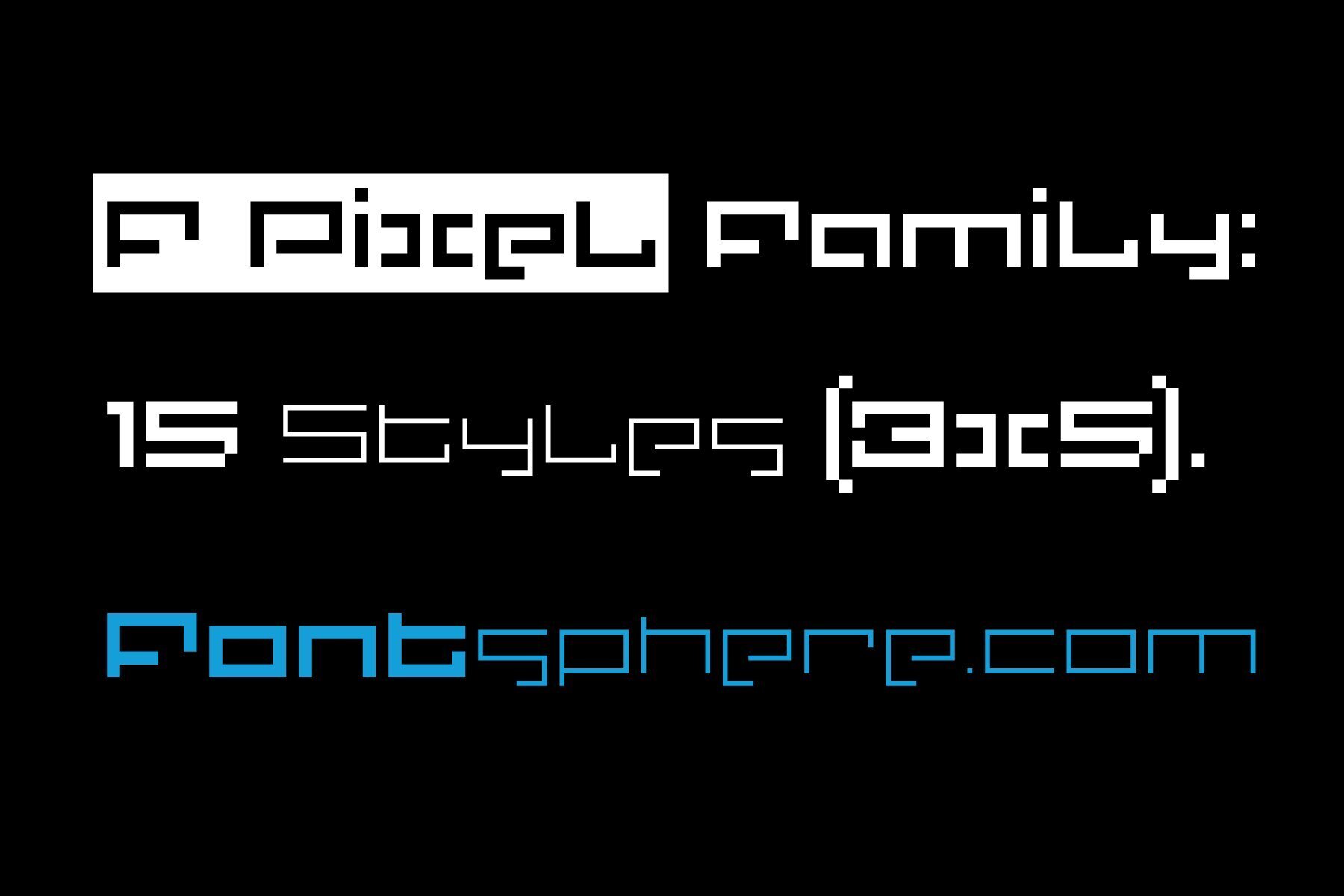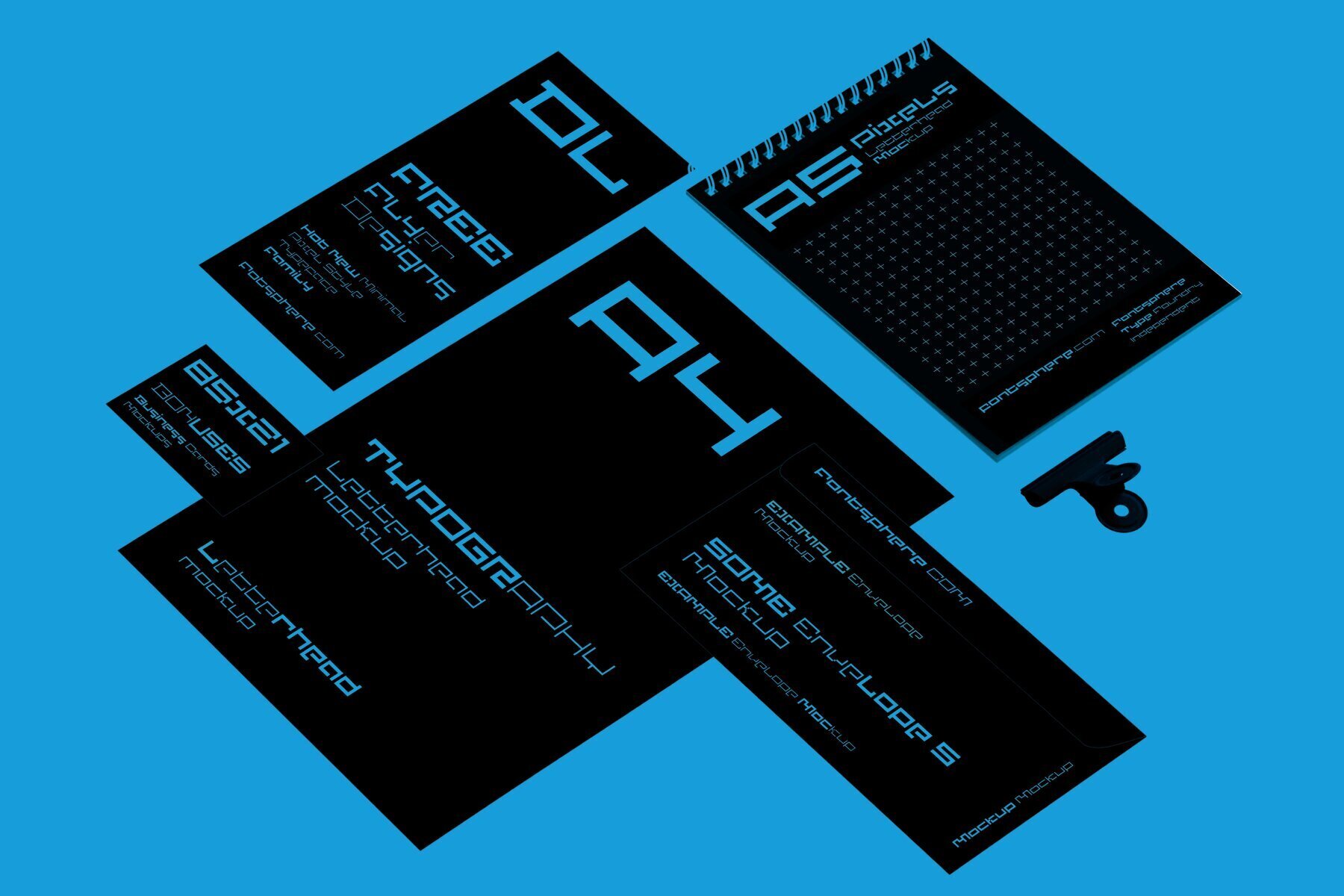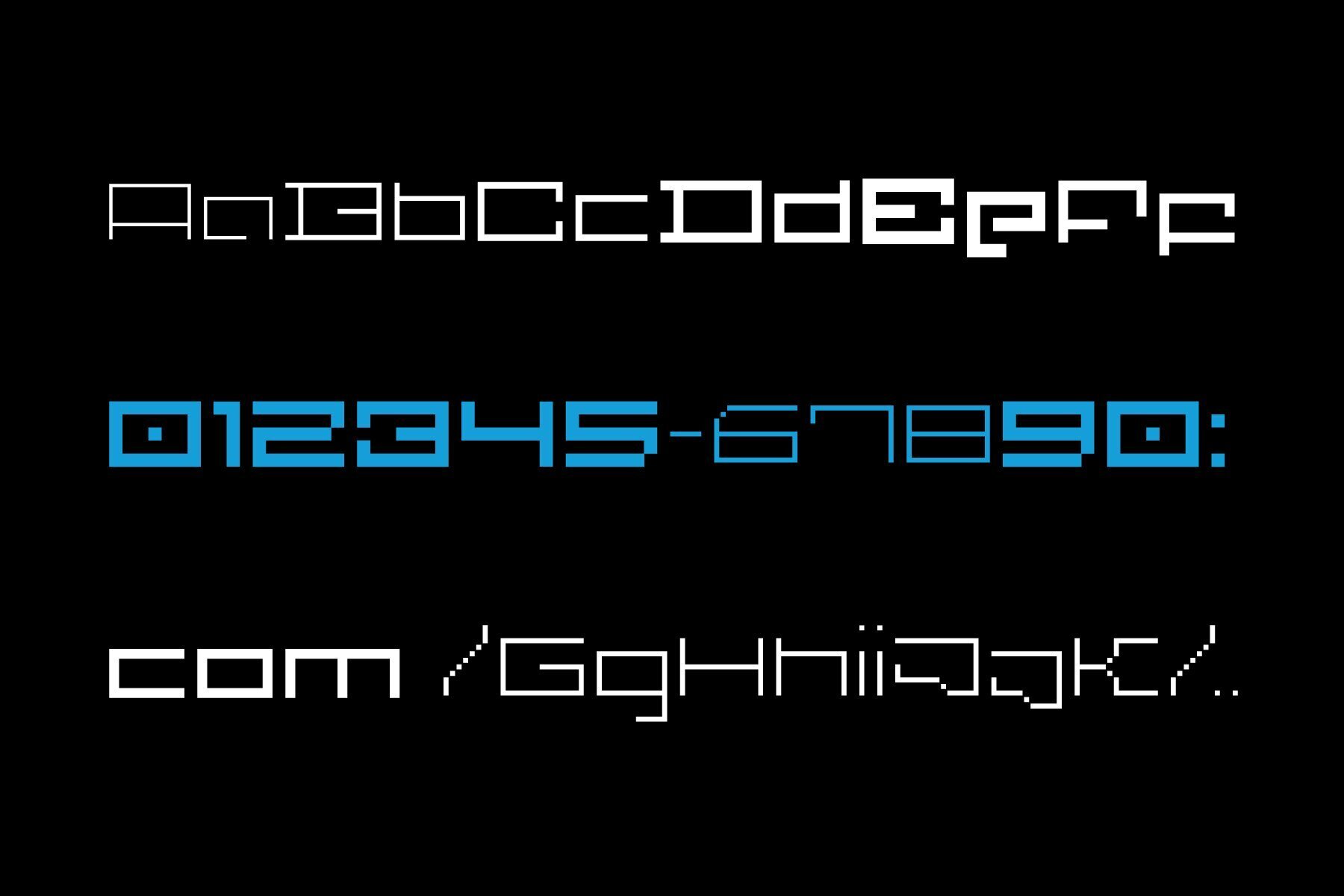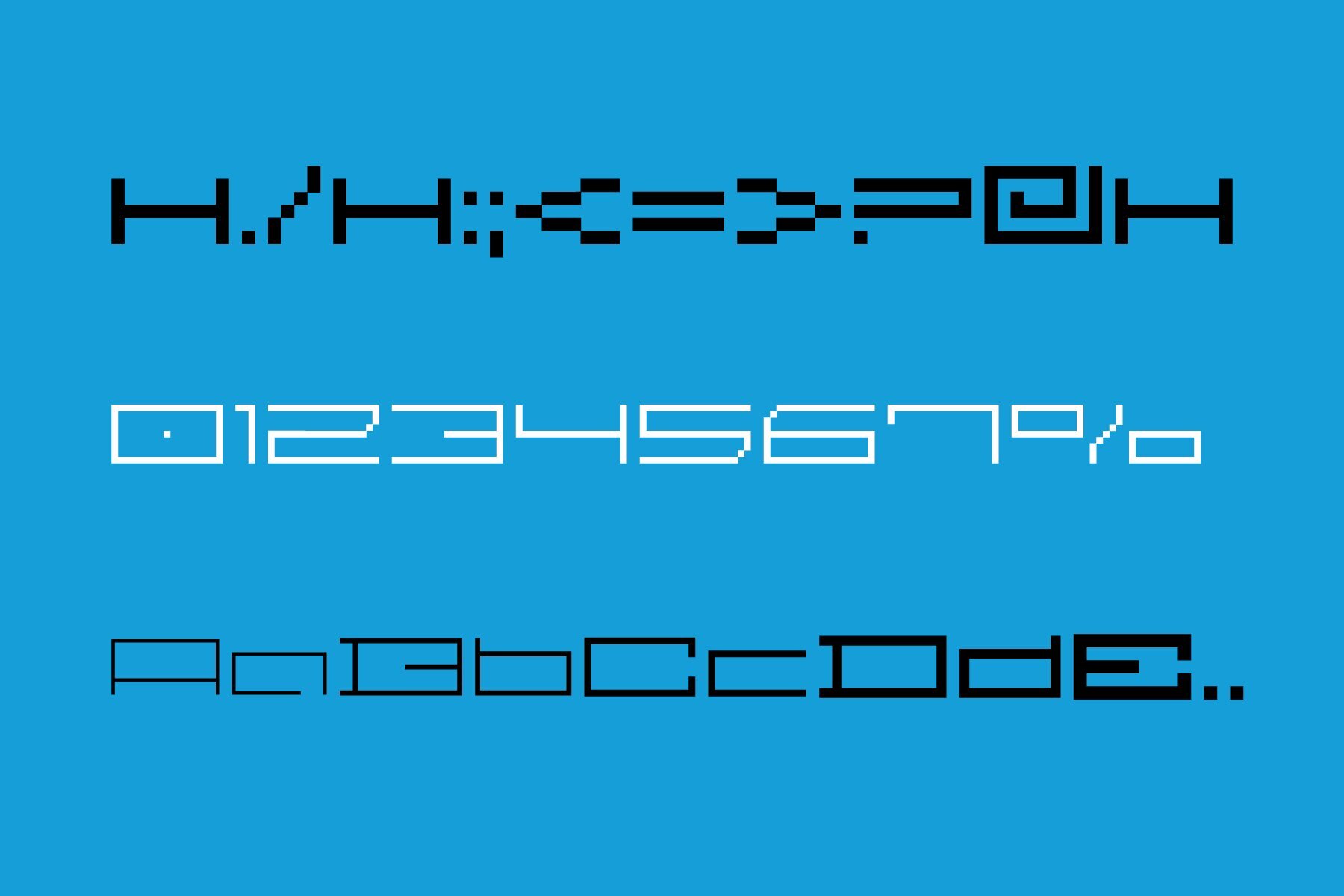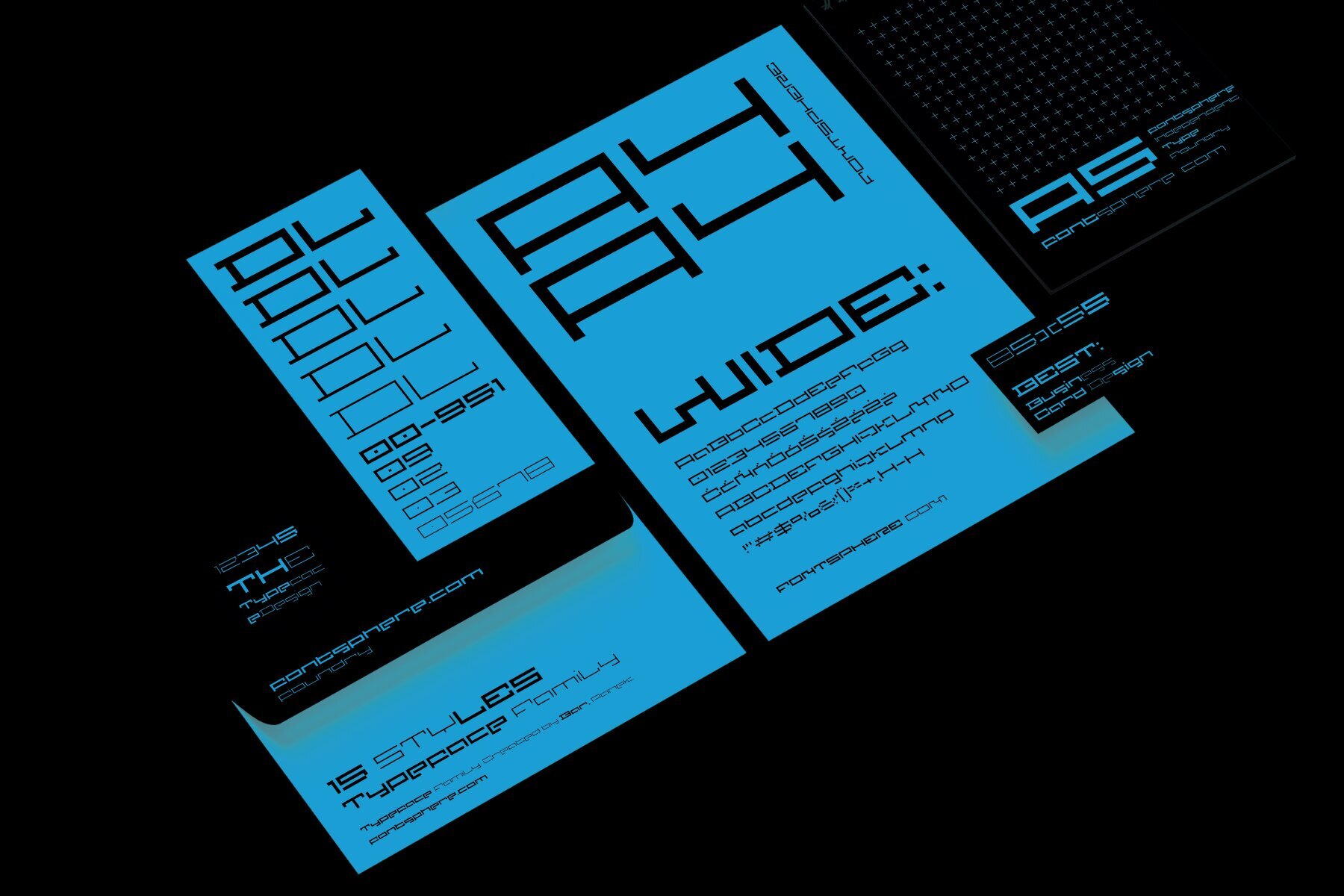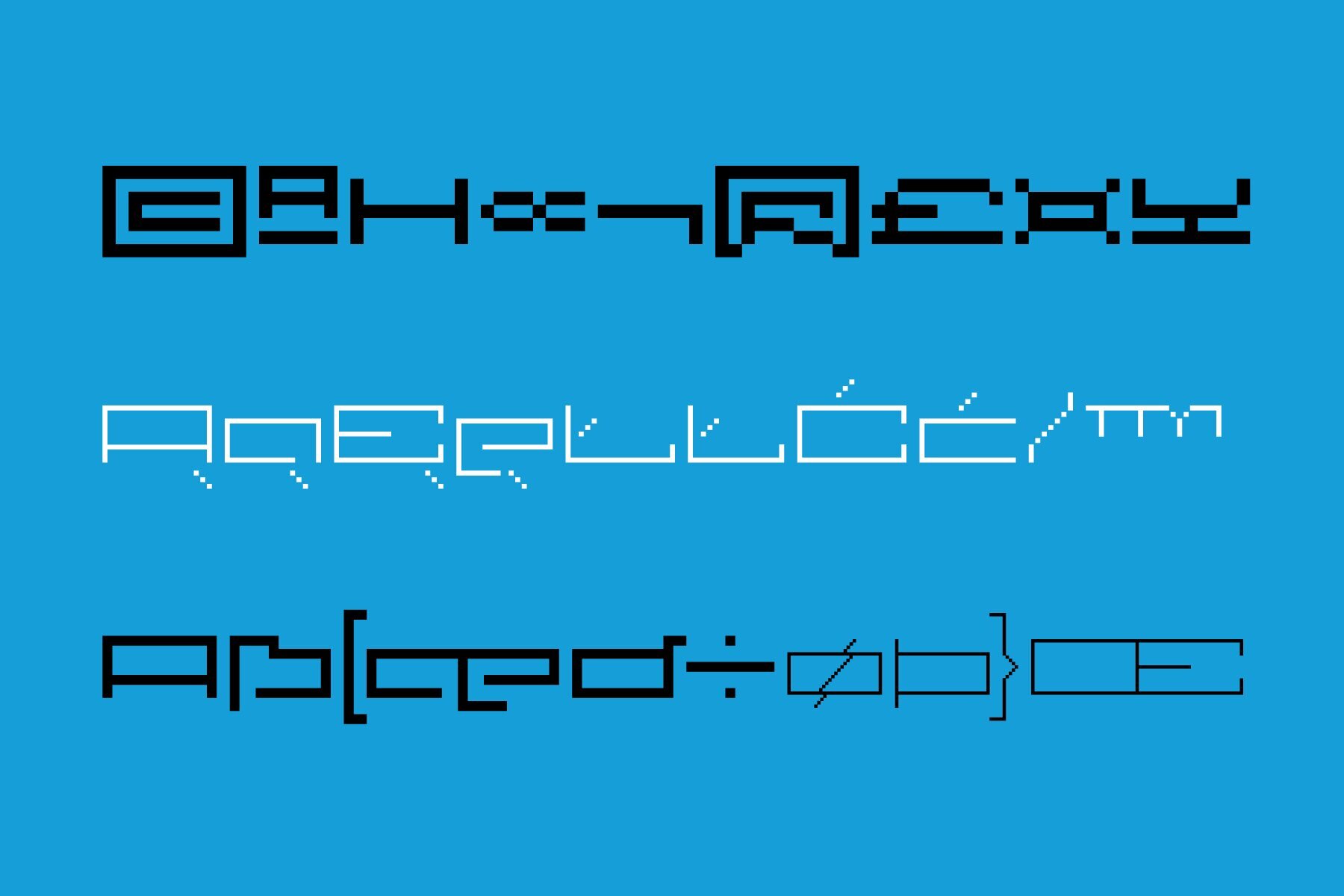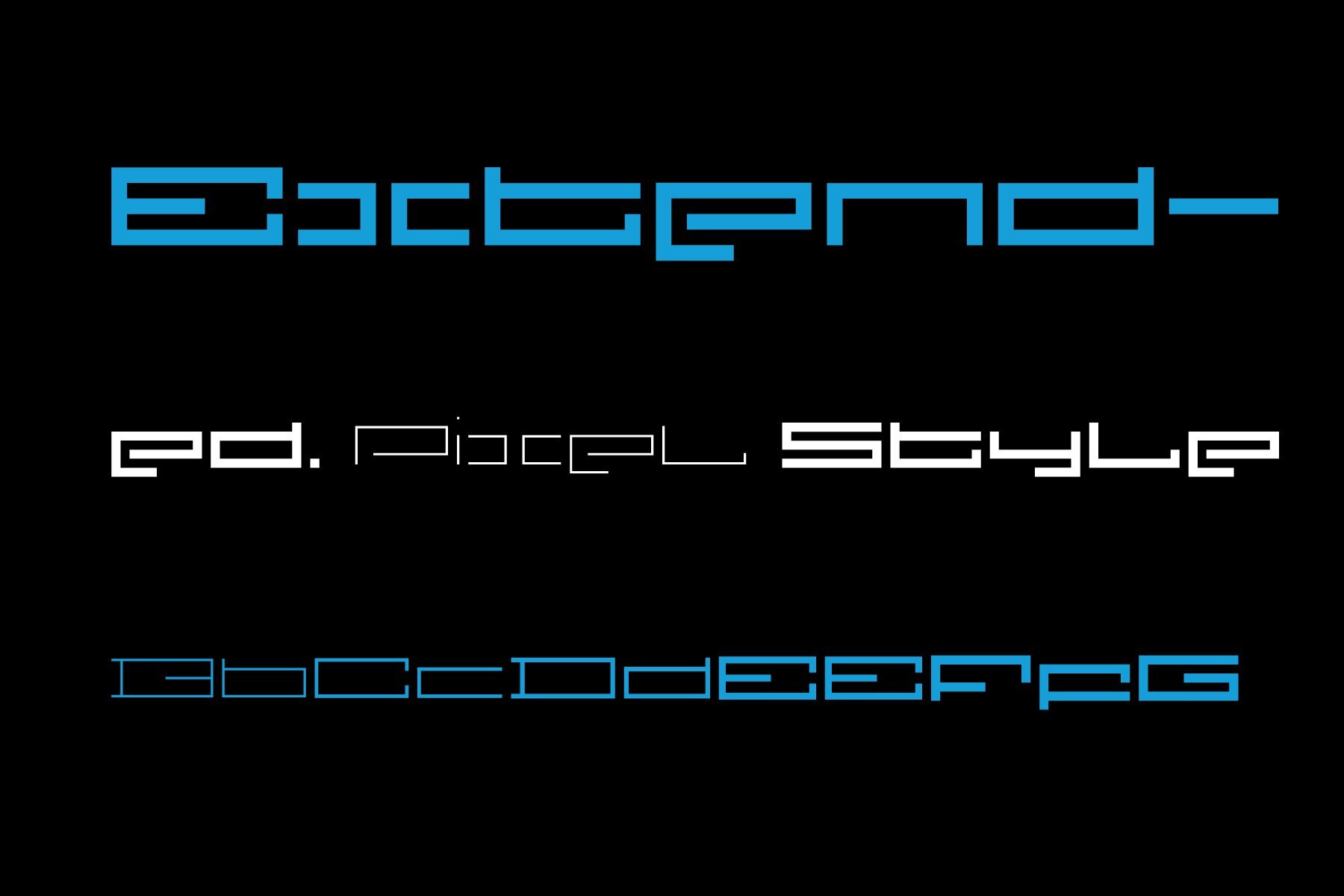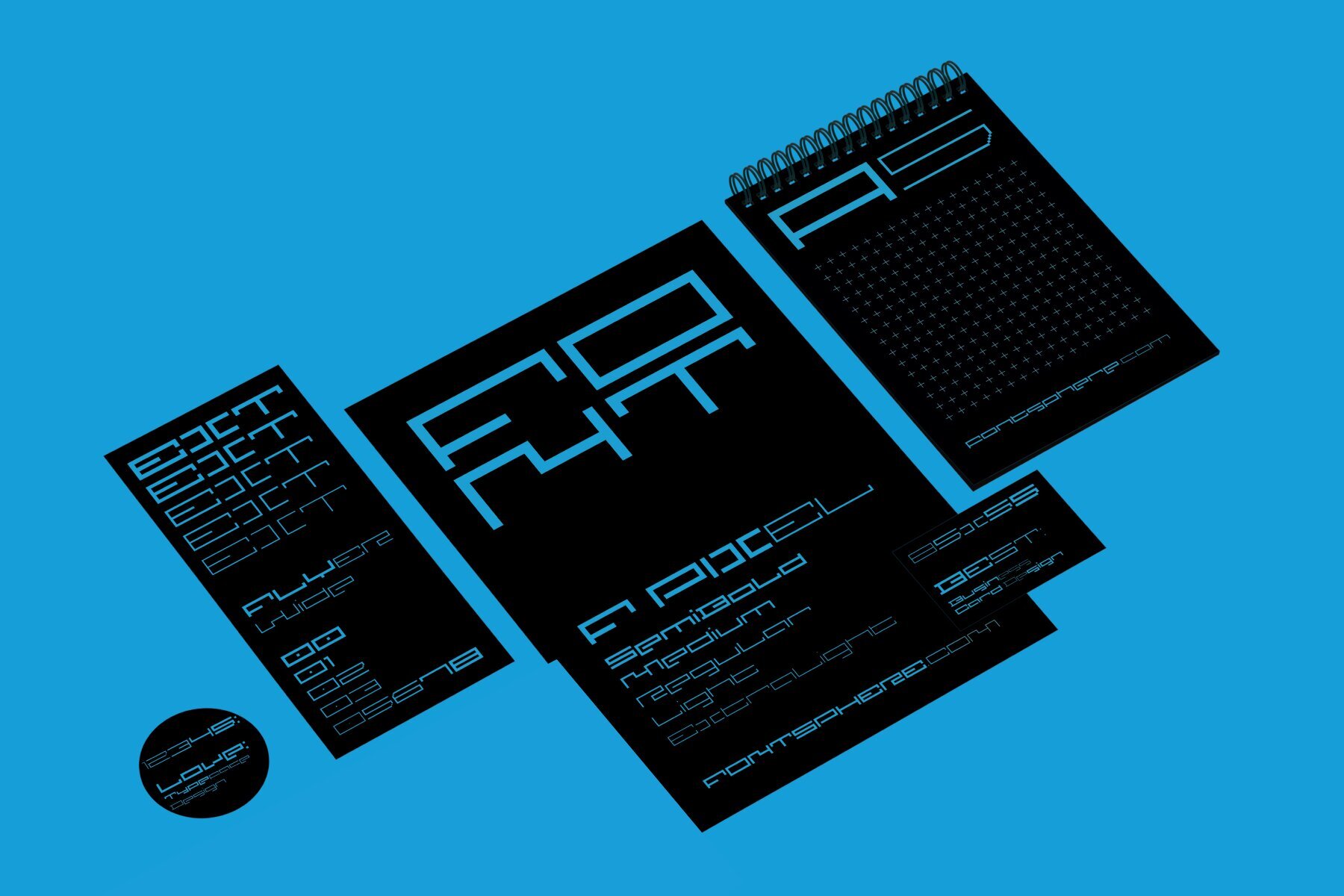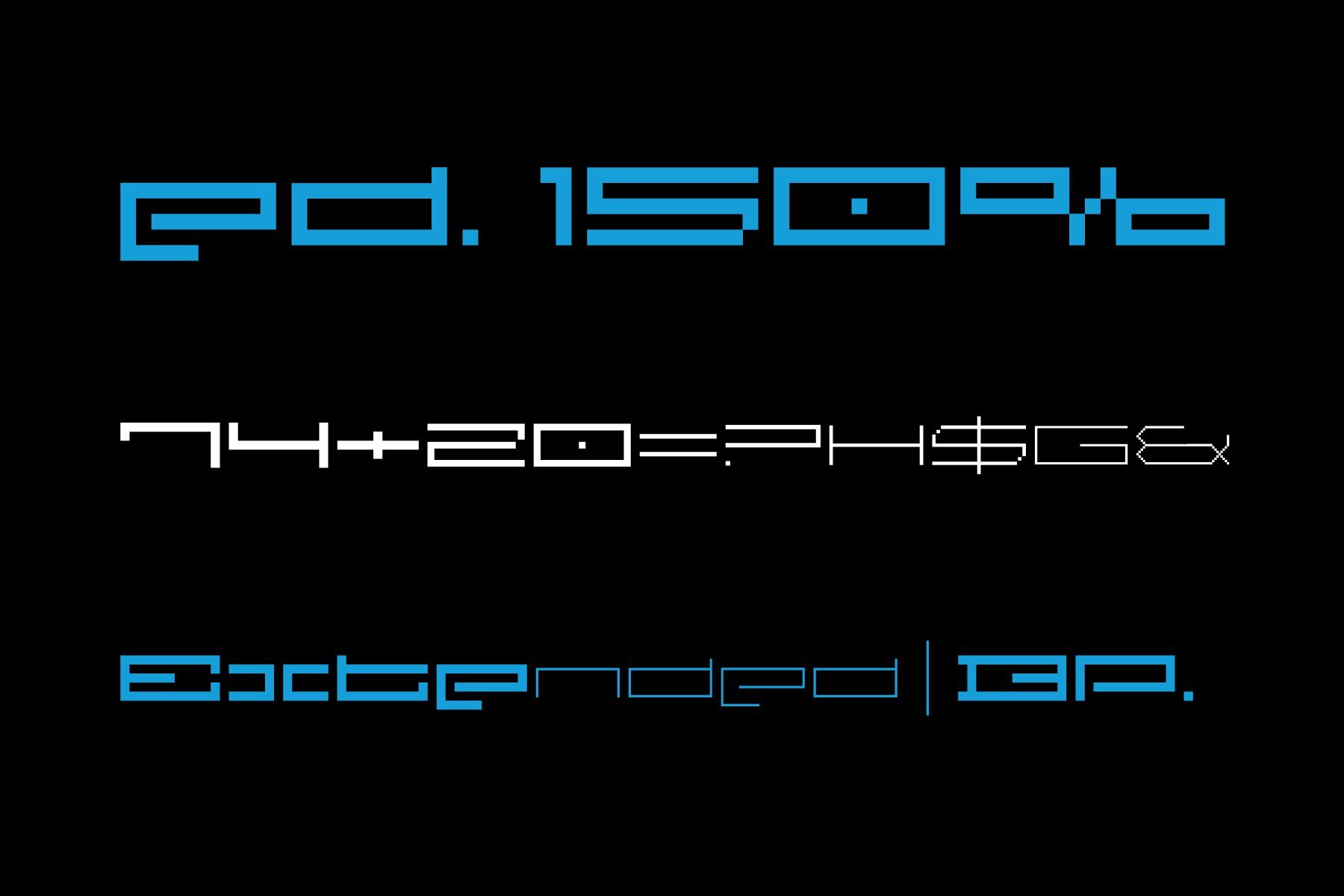
F Pixel Font
F Pixel is a geometric pixel typeface family from Fontsphere, designed with minimalist and futuristic elements rooted in pixel art. This typeface is crafted from pure geometry, eliminating curves and unnecessary details to provide a clean digital aesthetic suitable for modern design projects. Beyond being a collection of fonts, F Pixel offers a typographic system that allows for complete style and readability control.
The F Pixel family comprises 15 fonts organized across three widths and five weights. The widths include Normal, Wide, and Extended, while the weights range from ExtraLight to SemiBold. This extensive variety provides designers with the flexibility to create both bold, attention-grabbing headlines and subtle, clean layouts.
Designed for precision and impact, F Pixel's unique construction and visual presence are perfect for various applications, such as branding and logo design, where a modern and futuristic identity is desired; web and UI design, offering clarity and precision; and posters or editorials, ideal for bold, technology-focused compositions. It's also a fitting choice for illustration and motion graphics, promoting creative and experimental designs. This typeface reflects Fontsphere's commitment to geometric precision and distinct character, making it an adaptable asset for various creative projects.